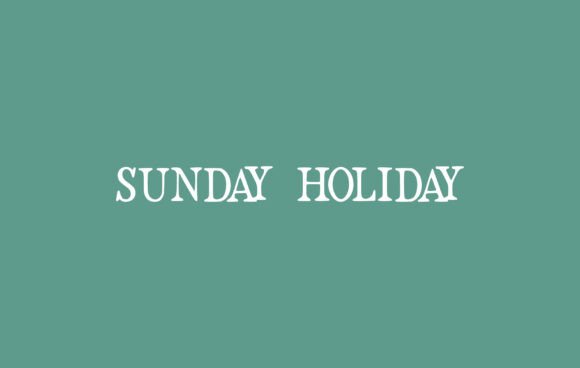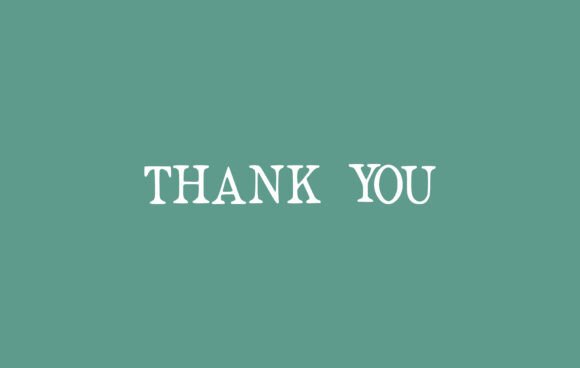
Enter the InkRebel Font, a beautifully crafted handwritten font that’s sure to become a true favorite. Expertly designed to capture the essence of romance and elegance, this font is perfect for a wide range of designs, from magazine headlines and social media posts to wedding invitations and branding materials. With its legibility and versatility, the InkRebel Font is a valuable addition to any designer’s toolkit.
Inkrebel Font Key Features
- Unique Characteristics: Inkrebel Font features a unique blend of modern and hand-drawn elements, resulting in a distinctive and eye-catching design.
Inkrebel Font Review
As a designer, I was excited to dive into the world of Inkrebel Font, a unique and handcrafted typeface that promises to add a touch of personality to any project. ✨ One of the things I appreciate about Inkrebel is its quirky charm. The font’s imperfect, hand-drawn feel adds a touch of human warmth to digital text, making it perfect for projects that need a bit of whimsy.
Another aspect that I find appealing is the font’s flexibility. Inkrebel comes in a range of weights and styles, making it easy to customize to suit your design needs. ✨ The font also includes a range of swashes and alternates, which can add an extra layer of visual interest to your text.
Overall, I find Inkrebel Font to be a great addition to any designer’s toolkit. While it may have some limitations, its unique charm and flexibility make it a great choice for projects that need a bit of personality. With a bit more development, I think Inkrebel Font could be a true standout in the world of typography.
The Inkrebel Font is perfect for:
- Brand identity and logos.
Great Vibes has a similar feel to Inkrebel Font, but with a more refined and polished appearance. While Inkrebel Font has a more rough-around-the-edges feel, Great Vibes is more refined and suitable for high-end designs.
Dancing Script has a more whimsical and playful feel compared to Inkrebel Font, which is more serious and edgy. While Inkrebel Font is great for bold statements, Dancing Script is better suited for more delicate and intricate designs.